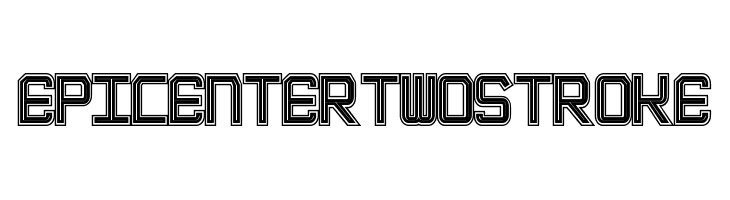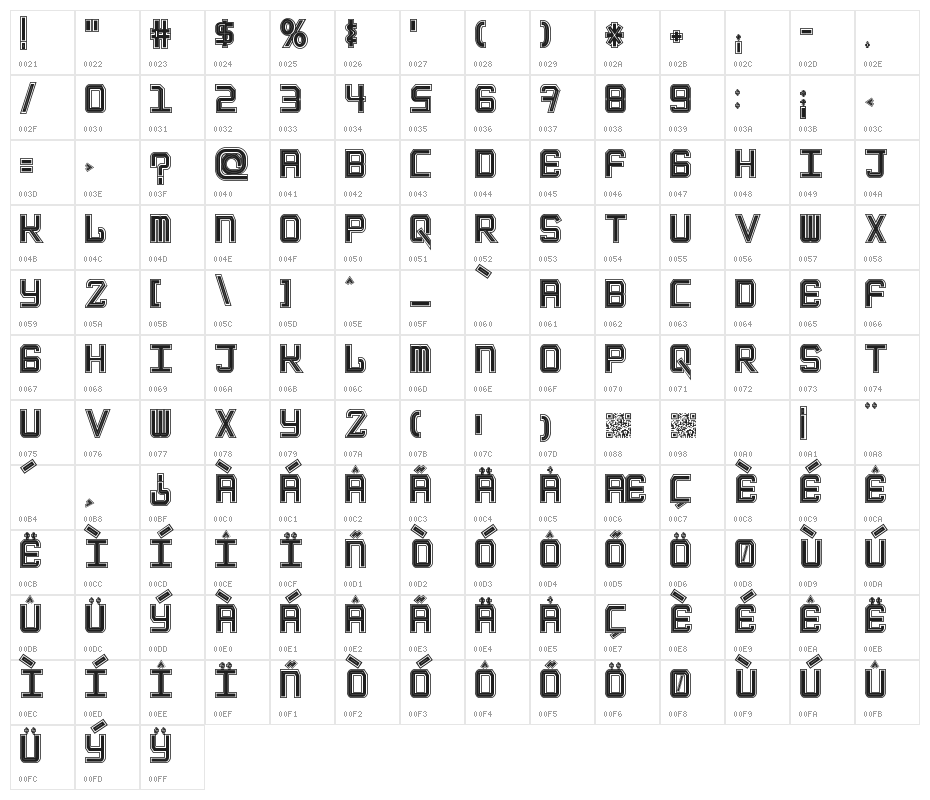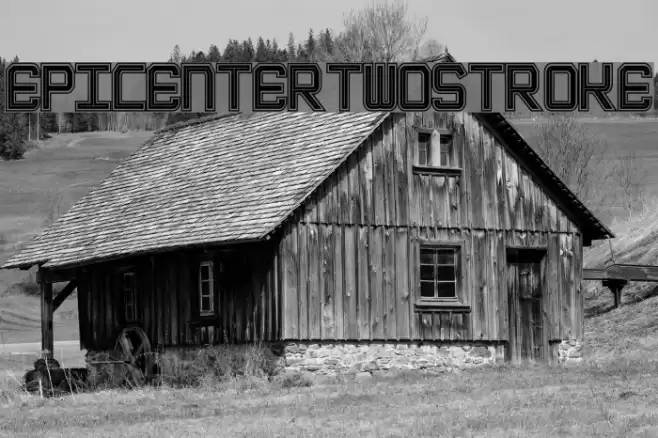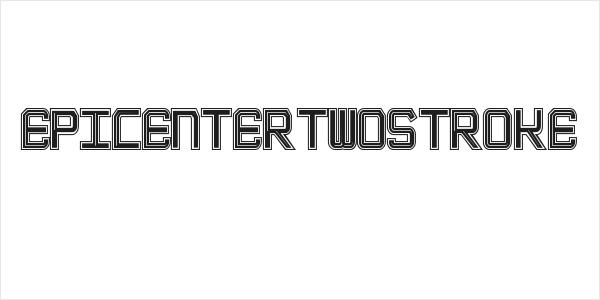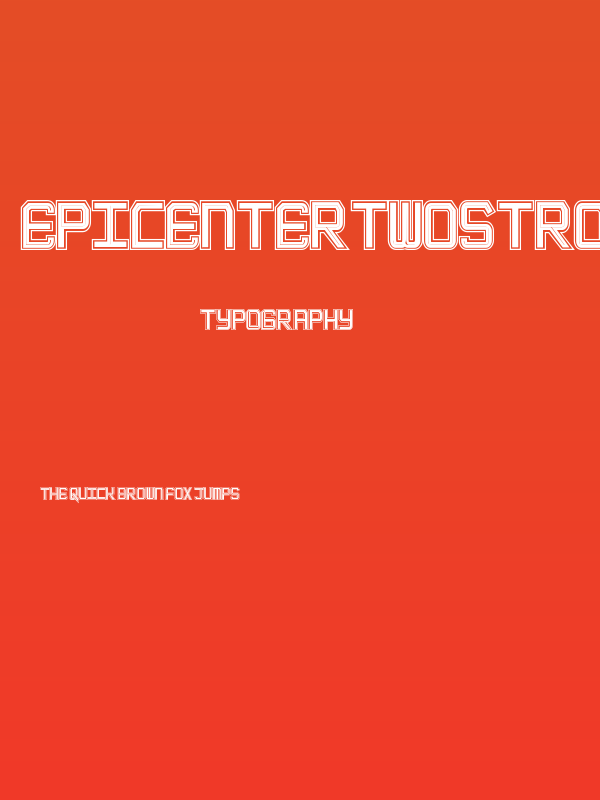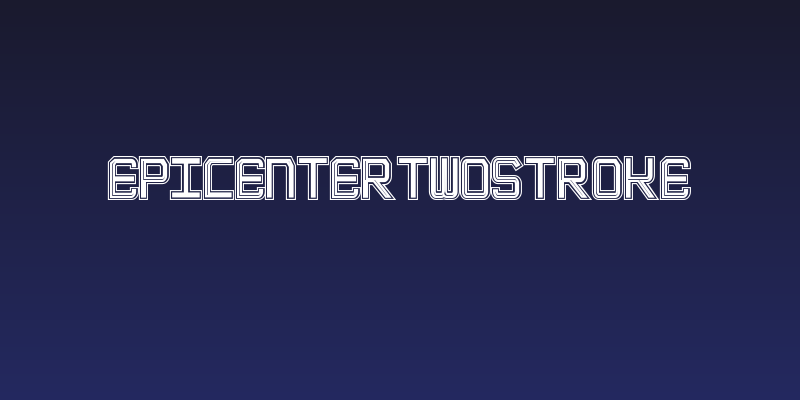
EpicenterTwoStroke Font
EpicenterTwoStroke Description
This font features a bold, geometric design with a double-line stroke that creates a striking, futuristic appearance. The characters are uppercase and lowercase alphabets, numerals, and a variety of special characters. Each letter is constructed with sharp angles and clean lines, giving it a structured and modern look. The double-line effect adds depth and dimension, making it ideal for eye-catching designs. The font's unique style is reminiscent of digital or technological themes, making it suitable for projects that require a contemporary and innovative touch.
| Proposed Projects | Ideal for technology branding, digital media, futuristic posters, and modern logos. |